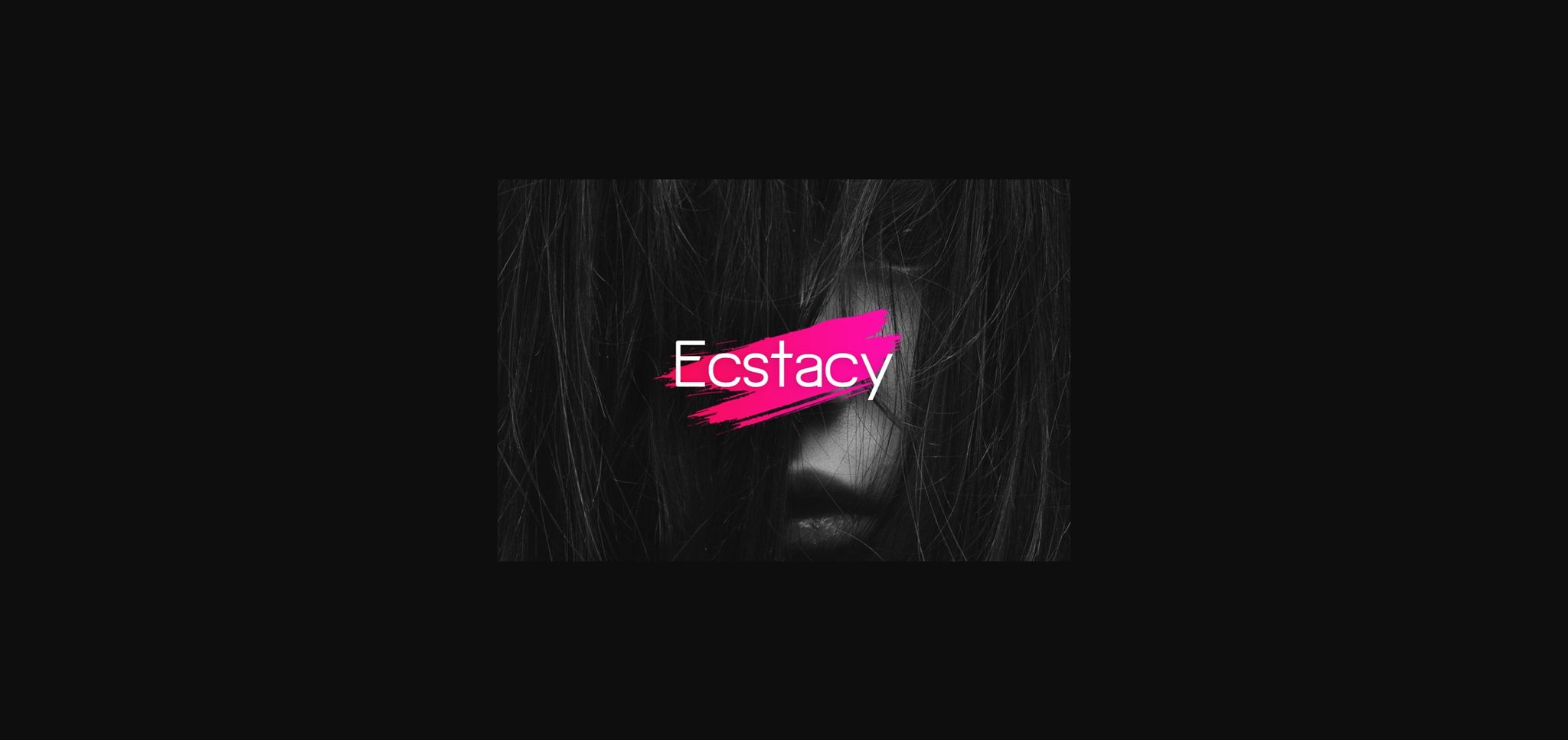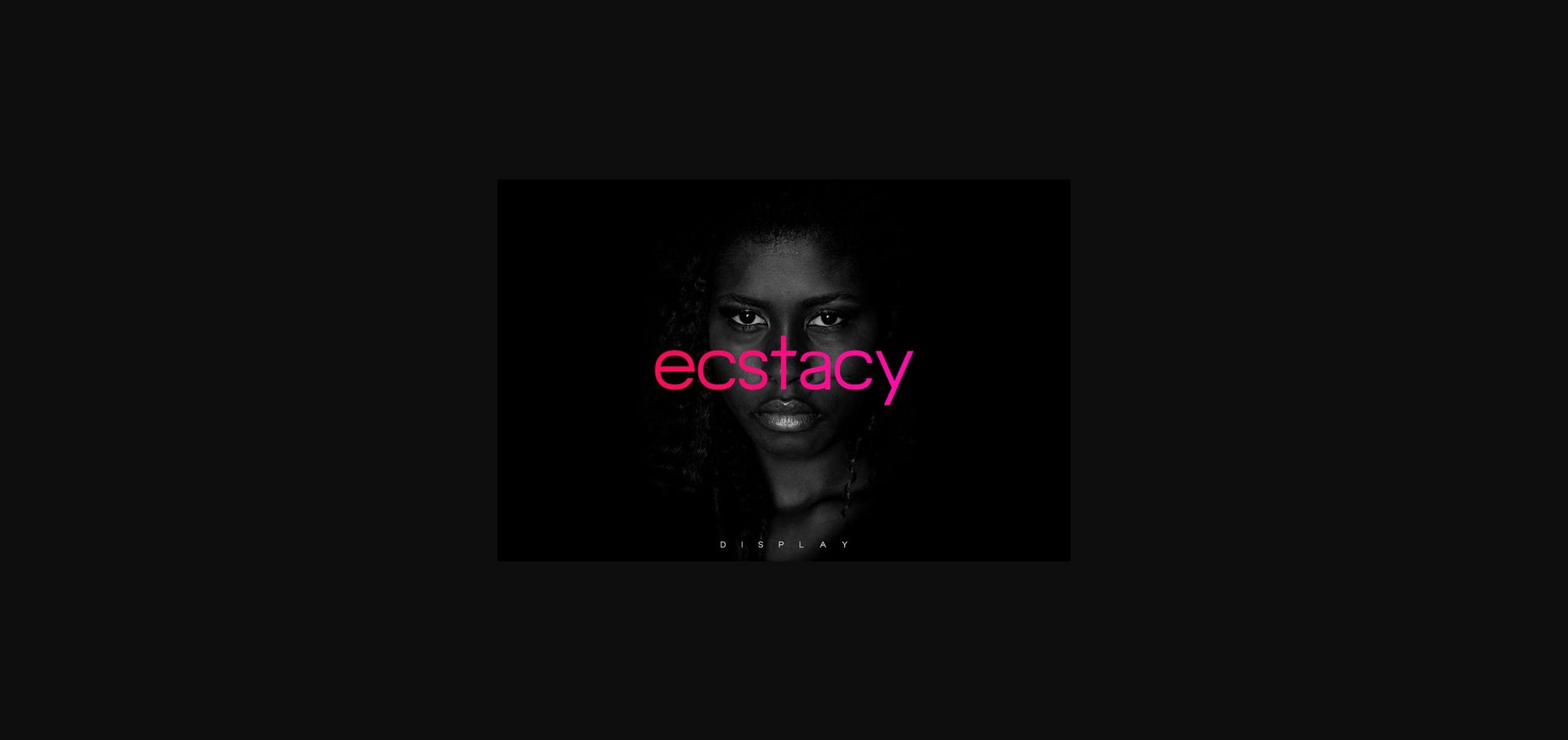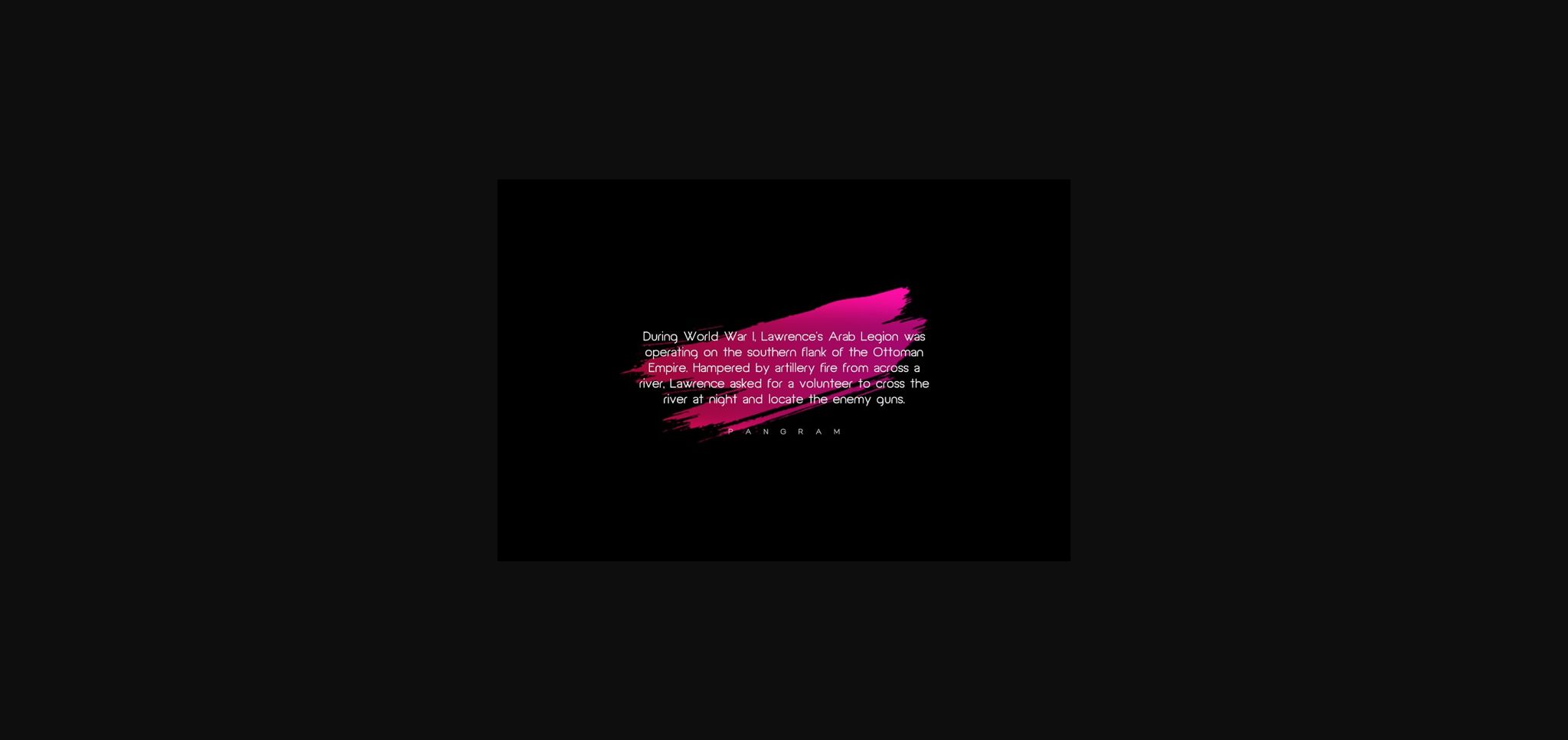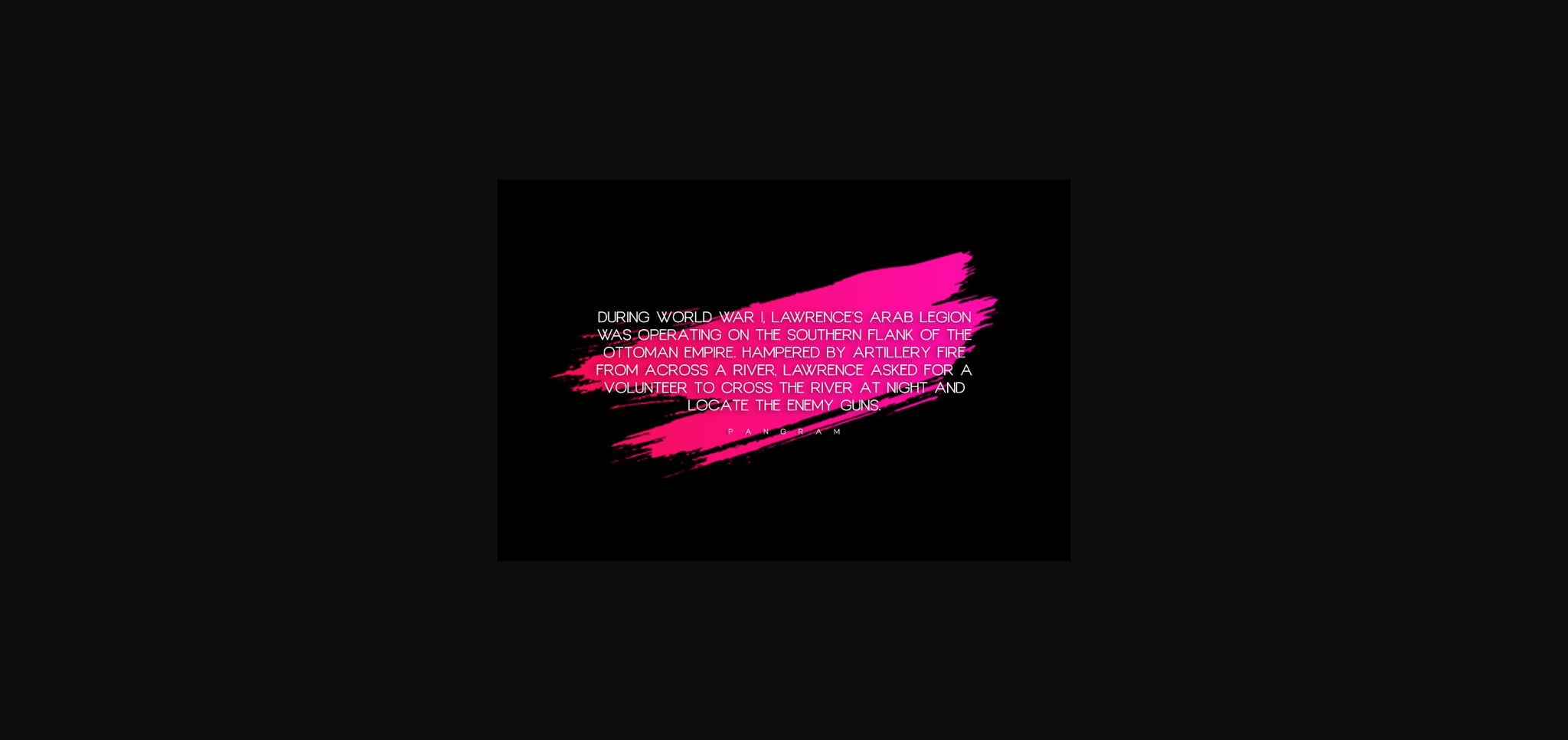
HomeSans Serif FontsEcstacy Font Sans Serif Fonts Ecstacy Font FacebookXPinterestWhatsApp 1 of 6 ... Ecstacy Font Poster 2... Ecstacy Font Poster 3... Ecstacy Font Poster 4... Ecstacy Font Poster 5... Ecstacy Font Poster 6... About Ecstacy Font Ecstacy is a simple and natural sans serif font. It can be matched to an incredibly large set of projects, so add it to your creative ideas and notice how it makes them stand out! DOWNLOAD NOW People also explored Valentine Season Font Grump The Crashed Fonts Behrens Schrift Sweet Mango Font Spring Time Font Racoti Font Katherine Font Sunglory Font 323 0 TagsEcstacyEcstacy Font Previous articleRockridge FontNext articleAberlour Font LEAVE A REPLY Cancel reply Comment: Please enter your comment! Name:* Please enter your name here Email:* You have entered an incorrect email address! Please enter your email address here Website: Save my name, email, and website in this browser for the next time I comment. Personal Use Free Good Luck Personal Use Free Read more about this font Rumaniaya Personal Use Free Read more about this font Christmas Diary Personal Use Free Read more about this font Bukhari Script Personal Use Free Read more about this font BLOG Fonts That Capture the Spirit of New York City New York City is more than just a place—it’s an experience, a rhythm, a visual language... Free vs Paid Fonts: Why Investing in Premium Fonts Is Worth It Modern Sans-Serif Fonts That Brands Love in 2025 How to Cut Any Font on Cricut: Convert a Font to SVG (Free)